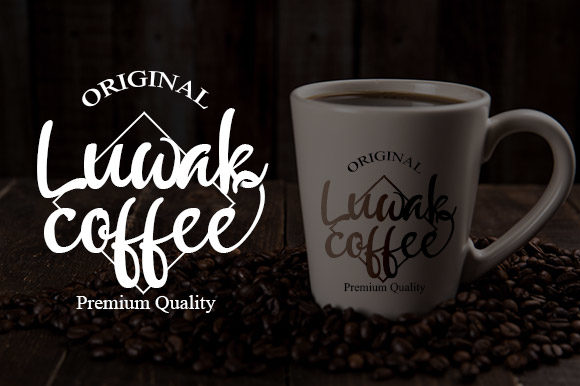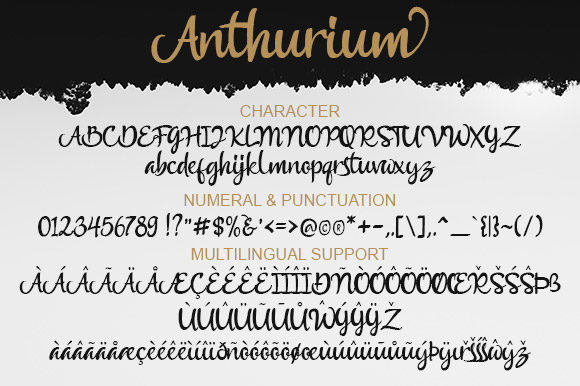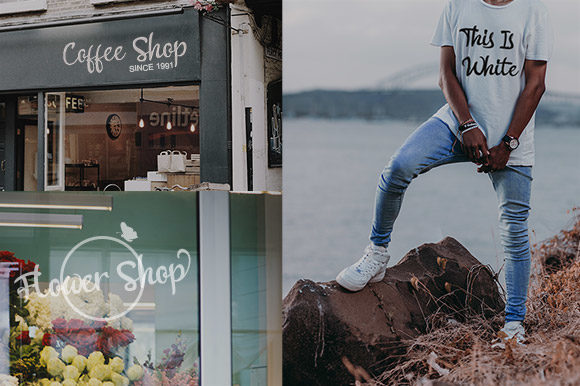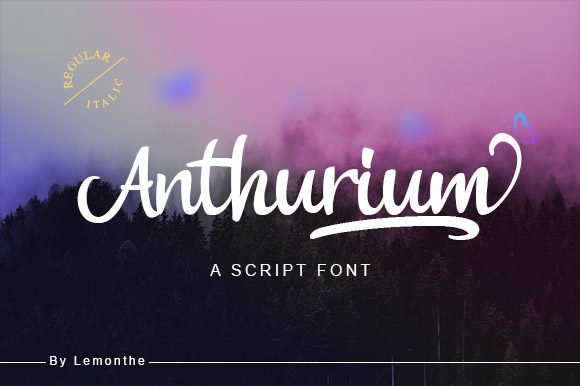
Introduction to Anthurium Font
Anthurium is a magical handwritten font carefully created with a touch of elegance.
This is a beautiful combination of timeless elegance and authentic calligraphy Use this gorgeous typeface to bring any DIY project to life.
Key Features of Anthurium Font
Why Choose Anthurium Font?
Anthurium Font offers exceptional quality and versatility, making it a valuable addition to your design toolkit. Whether you’re creating for personal projects or commercial use, Anthurium Font delivers professional results.